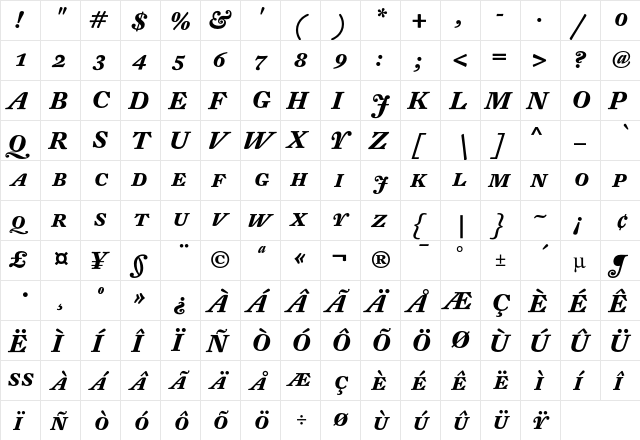
DTLFleischmannT CapsBoldItalic Font Preview
Design Context for DTLFleischmannT Typeface
DTLFleischmannT takes a measured approach to typography — its balanced proportions and neutral character make it a reliable workhorse for both digital and print work. The dynamic lean of this cut emphasises speed and emphasis in any layout. The heavy weight commands attention and anchors typographic hierarchies.
Pro Tip: Use DTLFleischmannT for emphasis, pull quotes, and subheadings where its slanted energy can add rhythm to the layout.